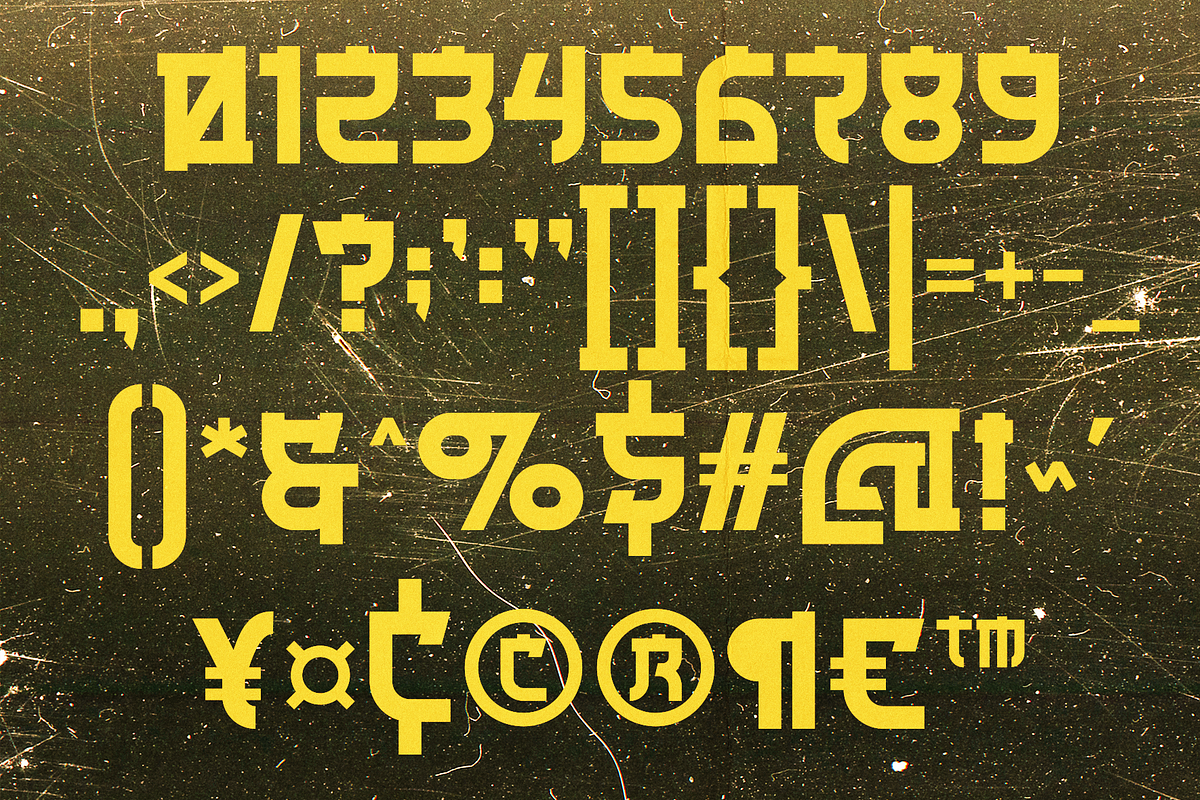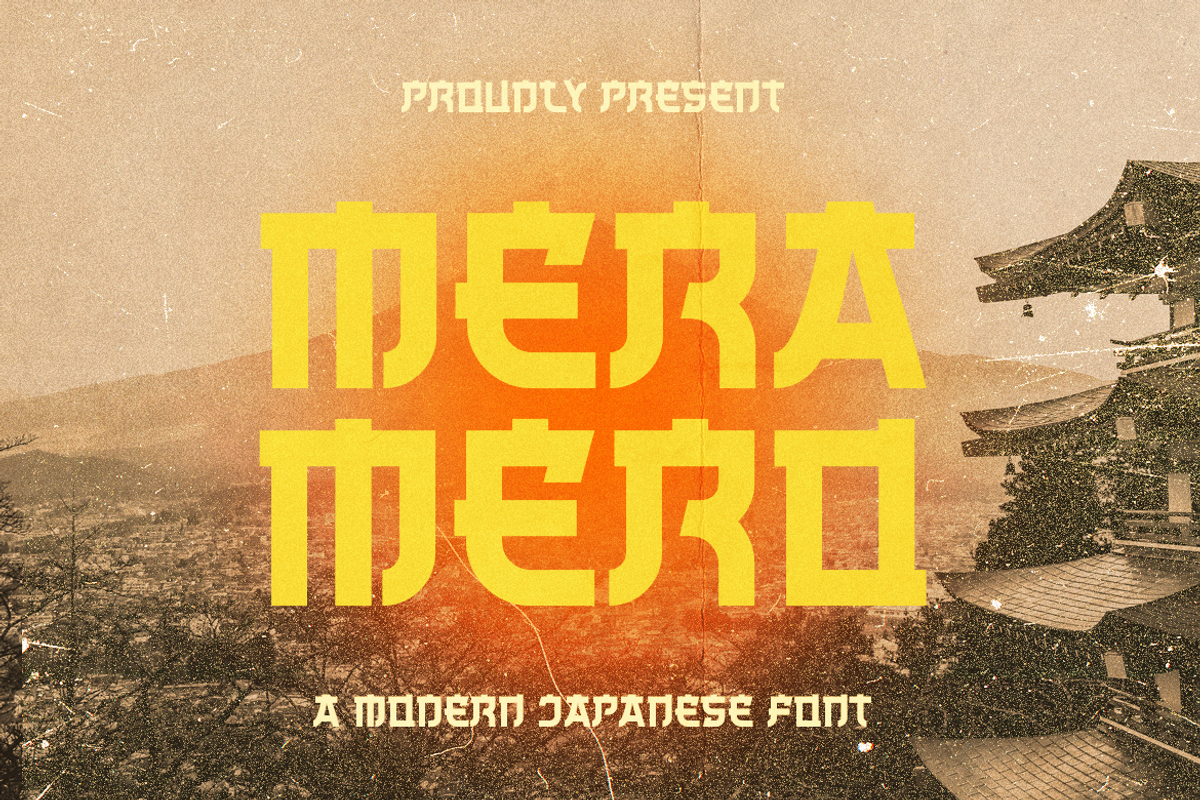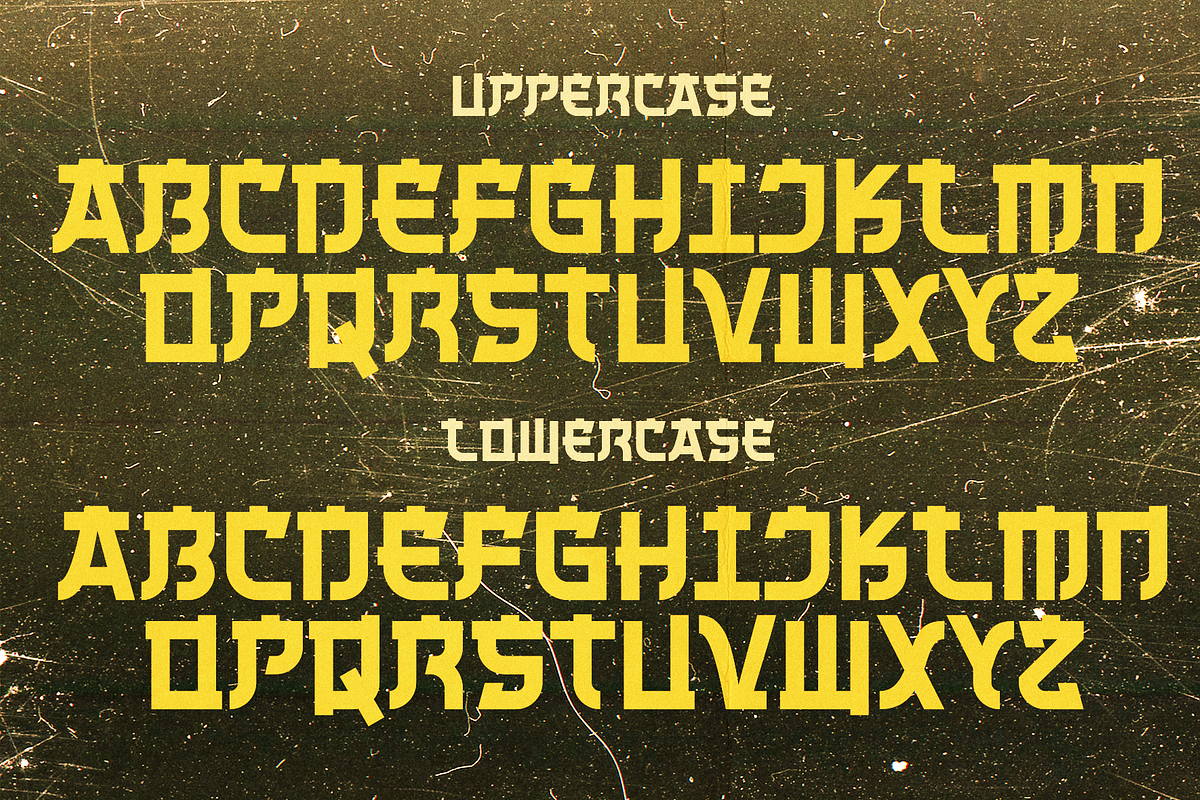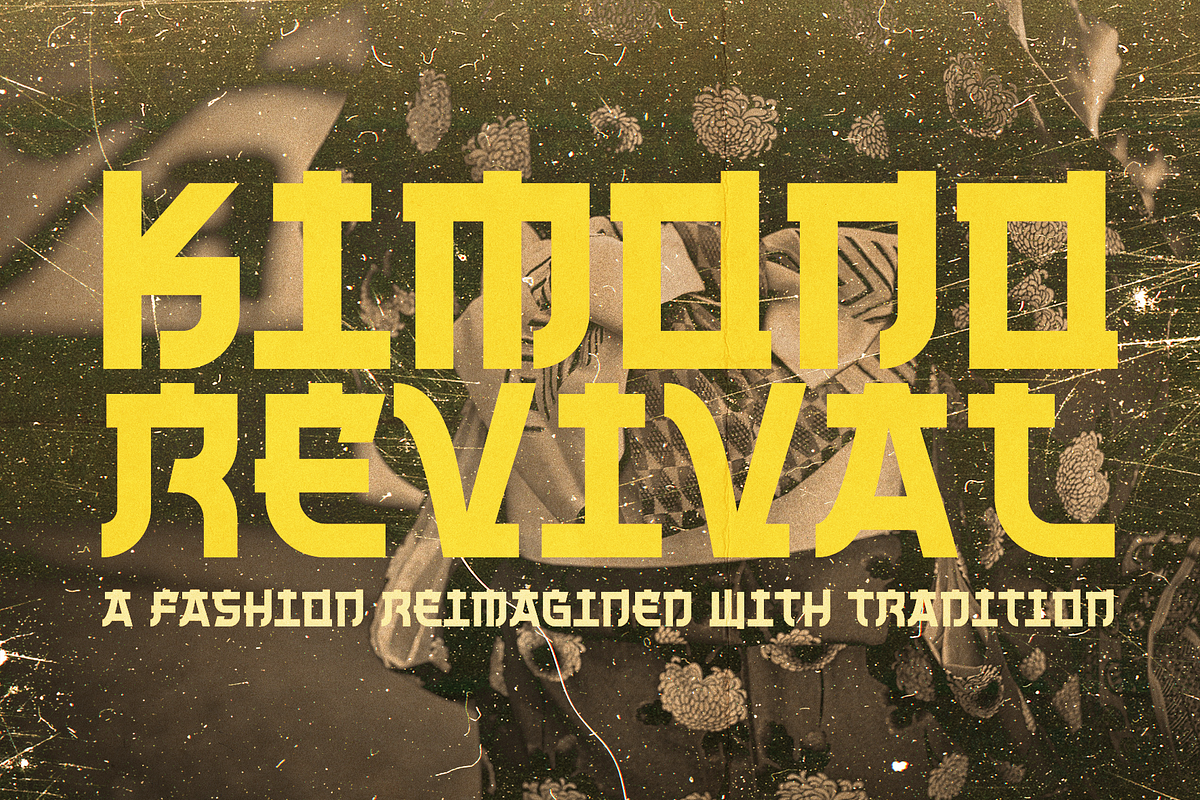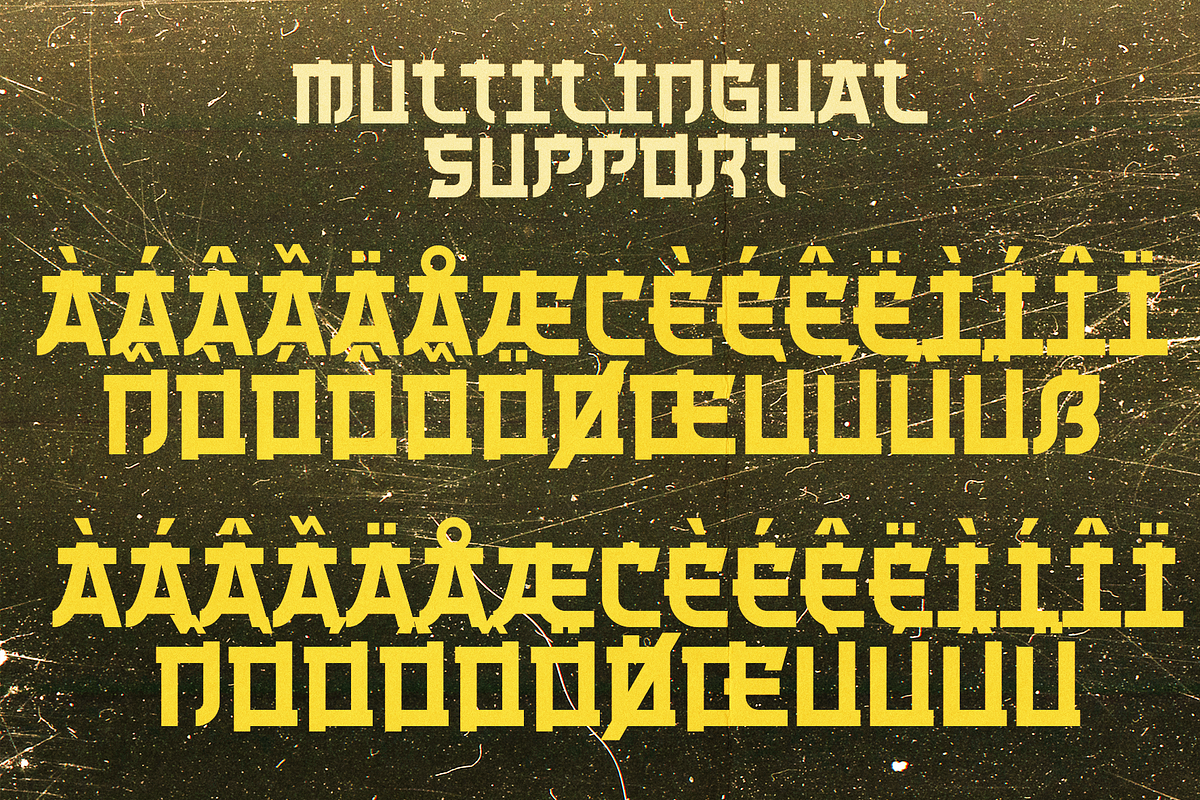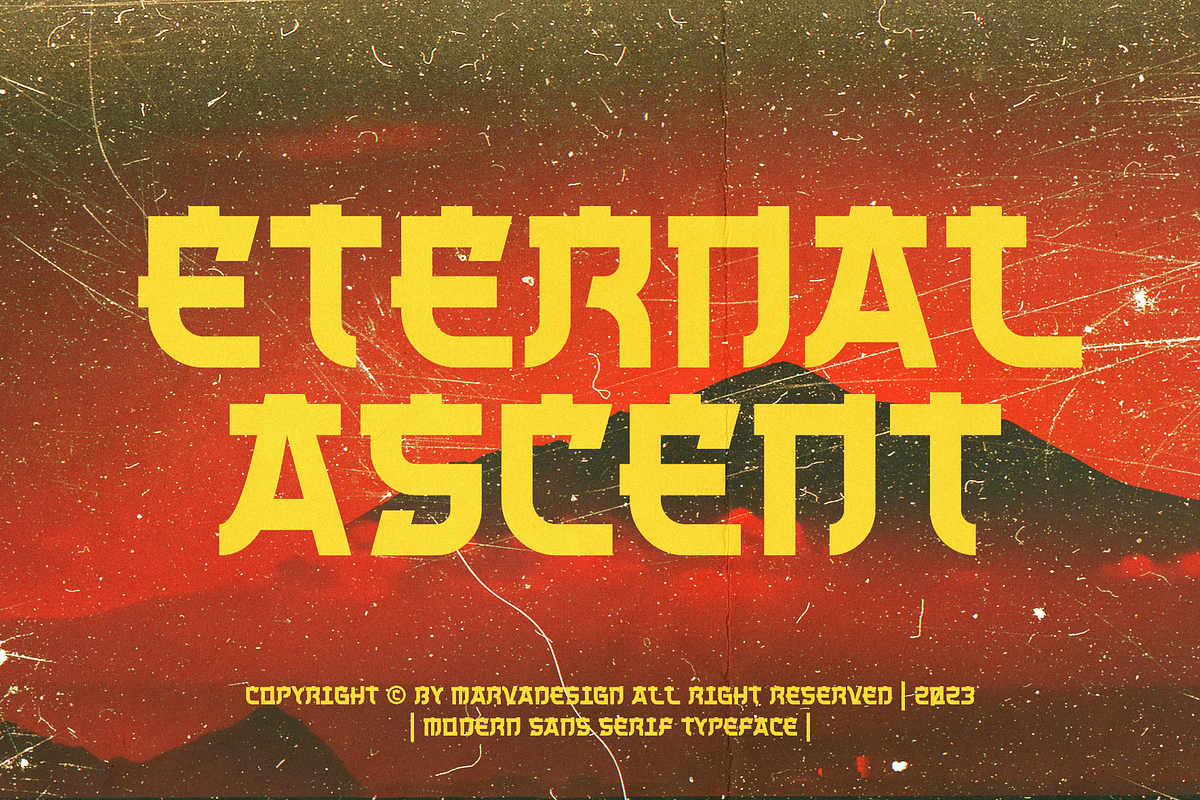
Mera Mero - A Modern Japanese Font
Introducing our new product Mera Mero Font - Modern Font is a bold and authentic display font. The font is suitable for any branding project like logo, Template Design, Product and many more. outstanding in a wide range of contexts.